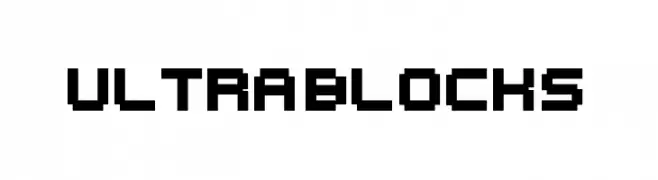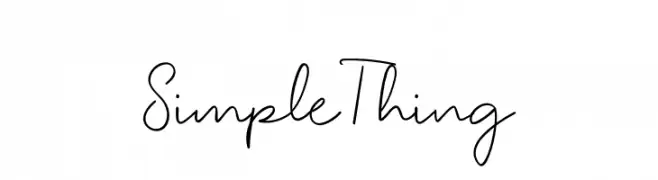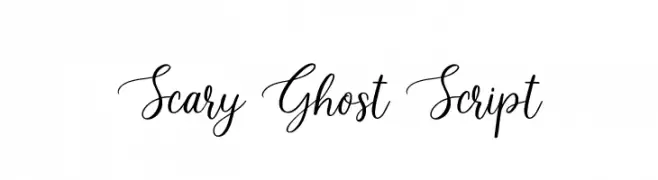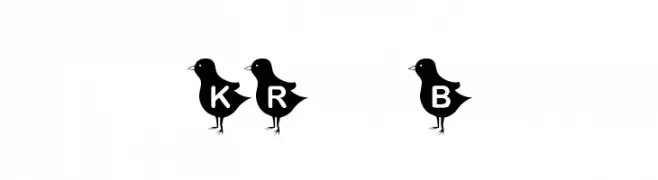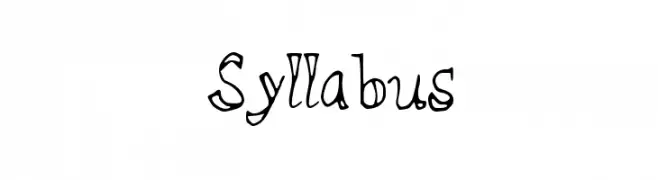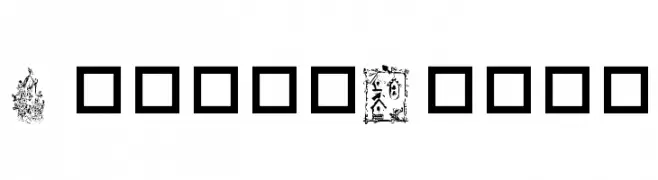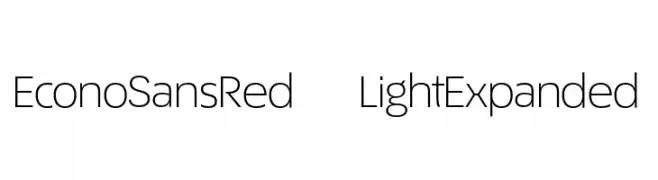
A bold, pixelated font with a retro digital aesthetic.
A casual, handwritten font with a modern, flowing style.
A graceful and artistic script font with elegant loops and flourishes.
A whimsical font with letters encased in blackbird silhouettes, perfect for playful designs.
A bold, playful font with rounded edges and exaggerated serifs.
A bold, gothic-inspired font with sharp, angular edges and a heavy weight.
A whimsical, hand-drawn font with irregular lines and playful character.
An ornate, bird-themed decorative font with intricate designs.
A whimsical, decorative font with festive hanging ornaments on each character.
A modern, light, and expanded sans-serif font with a clean and geometric design.